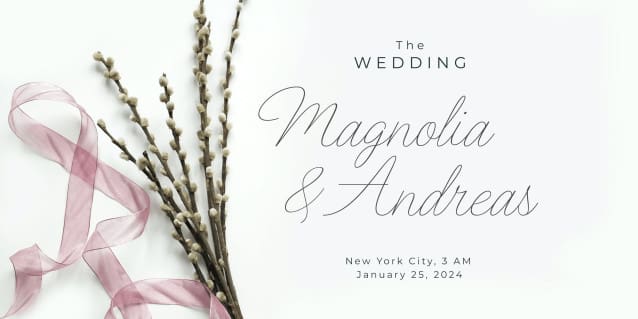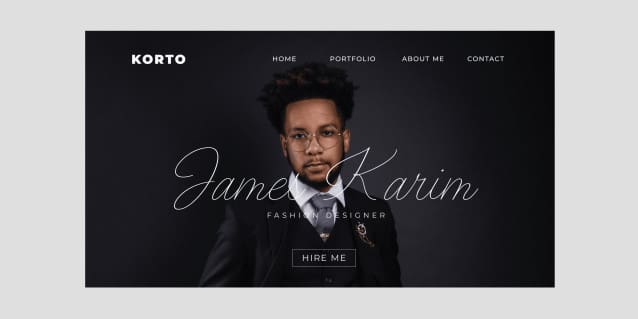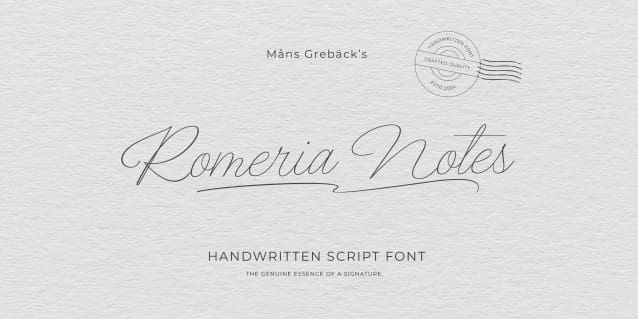
Romeria Notes Font
Romeria Notes Font is a handwritten font that captures the genuine essence of a signature. This natural script font with fluid strokes seems as if it’s been directly lifted from a personal notebook.